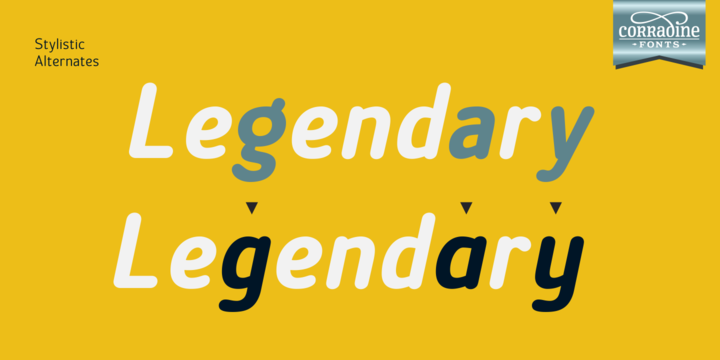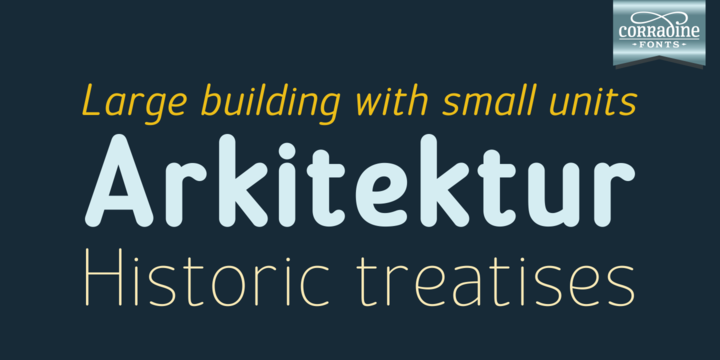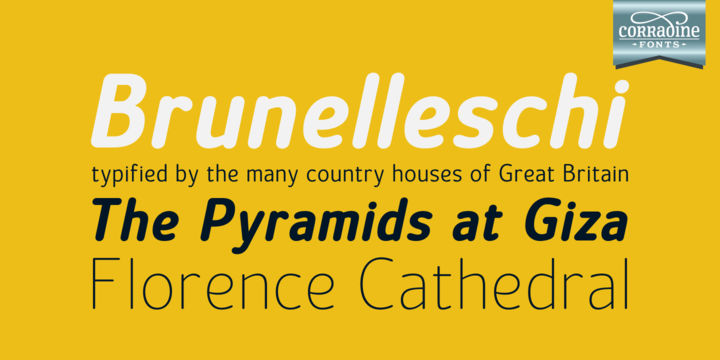
Introduction to Official Family Font
Official is a beautiful font family.
It can be used for various purposes such as: headlines, book covers, posters, invitations and much more Perfect for those who like to be creative.
Why Choose Official Family Font?
Official Family Font offers exceptional quality and versatility, making it a valuable addition to your design toolkit. Whether you’re creating for personal projects or commercial use, Official Family Font delivers professional results.